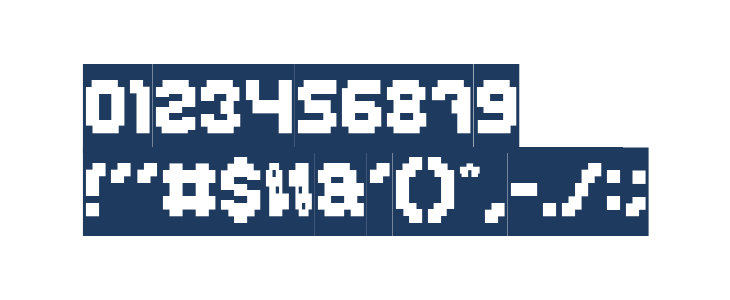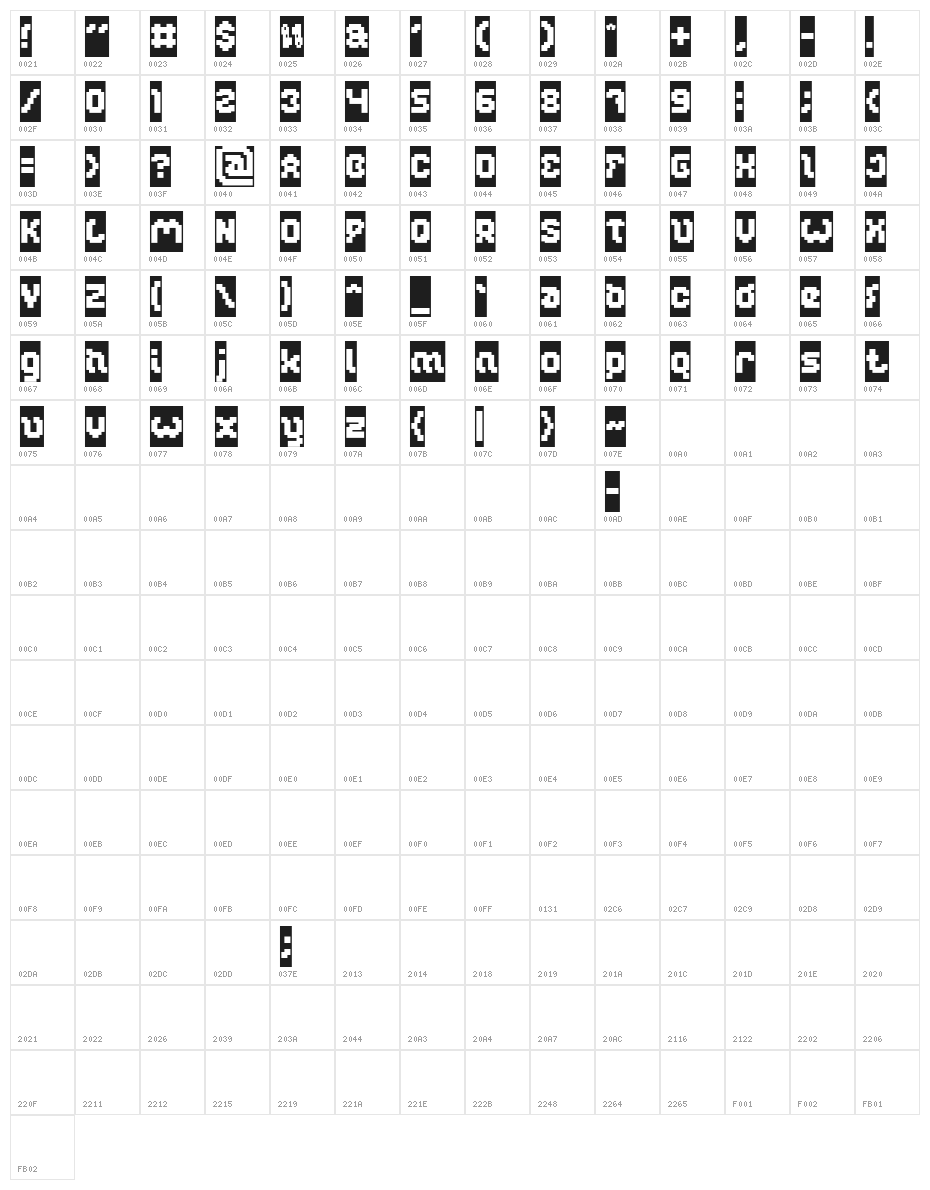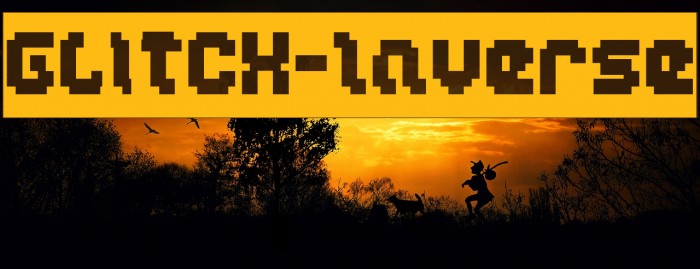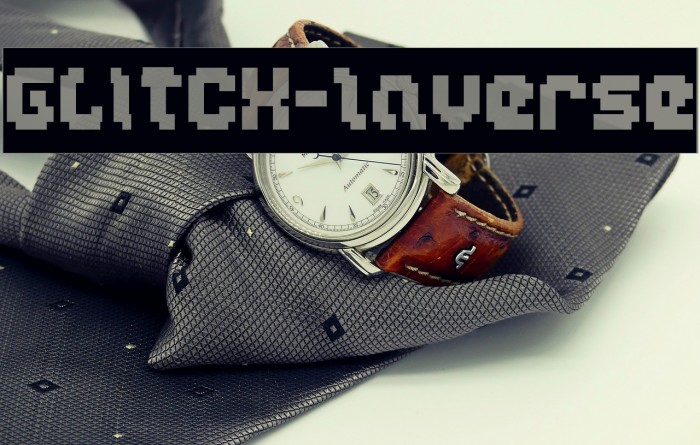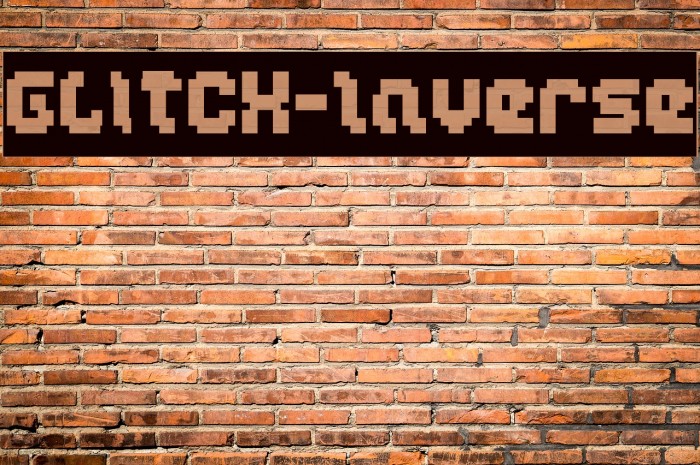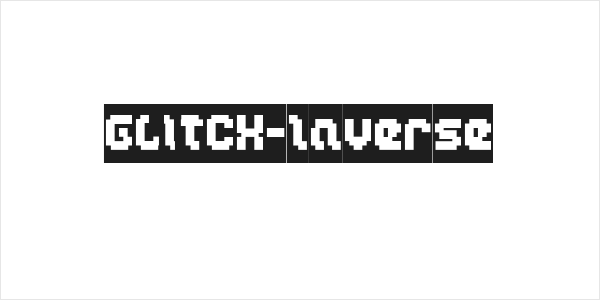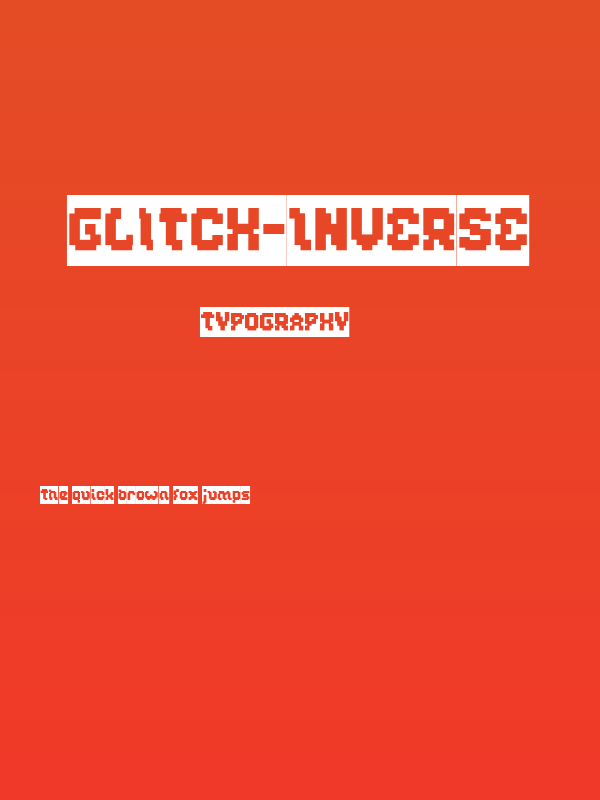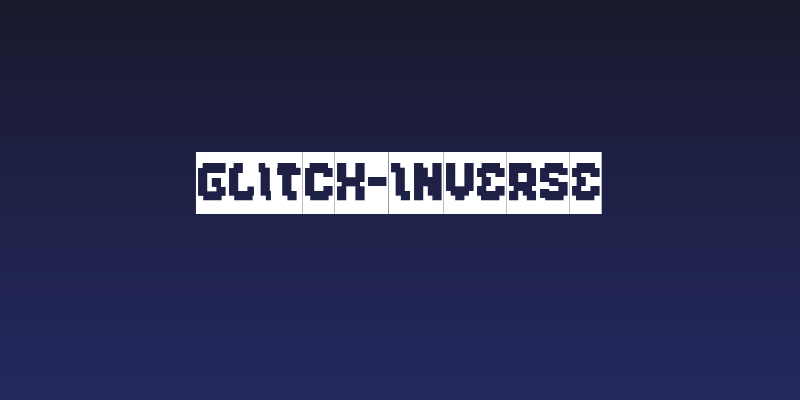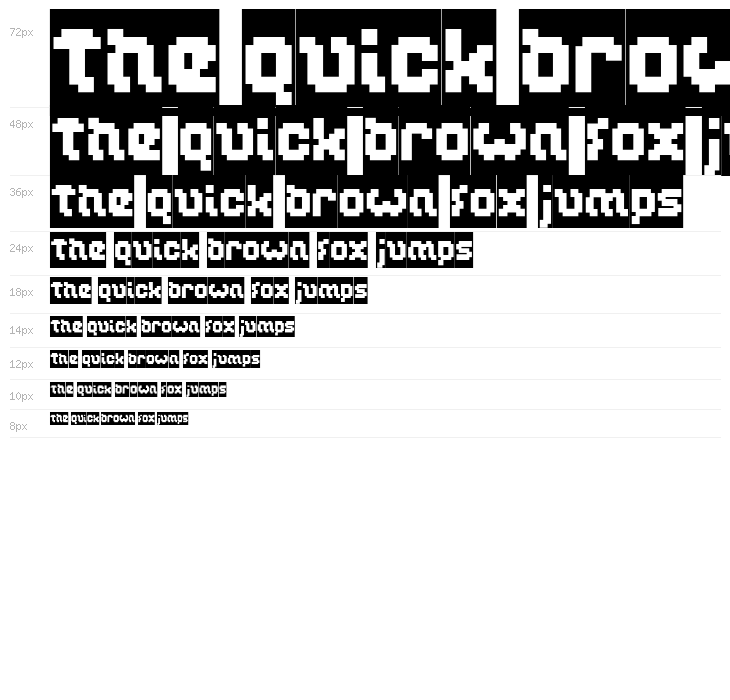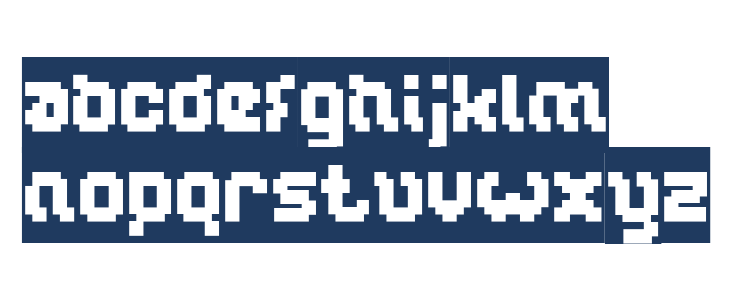
GLITCH-Inverse Font
GLITCH-Inverse Description
This font features a bold, pixelated design reminiscent of retro video games and digital displays. Each character is constructed with a blocky, grid-like structure, giving it a distinct, glitchy appearance. The uppercase and lowercase letters maintain a consistent height, enhancing the uniformity of the typeface. Numbers and special characters follow the same pixelated style, ensuring a cohesive look across all elements. The font's unique style makes it ideal for projects that require a digital or futuristic aesthetic.
Overall StyleRetro, Digital
Use CaseHeadlines, Logos, Digital Art
Proposed ProjectsIdeal for video game graphics, digital art projects, retro-themed designs, and tech-related branding.